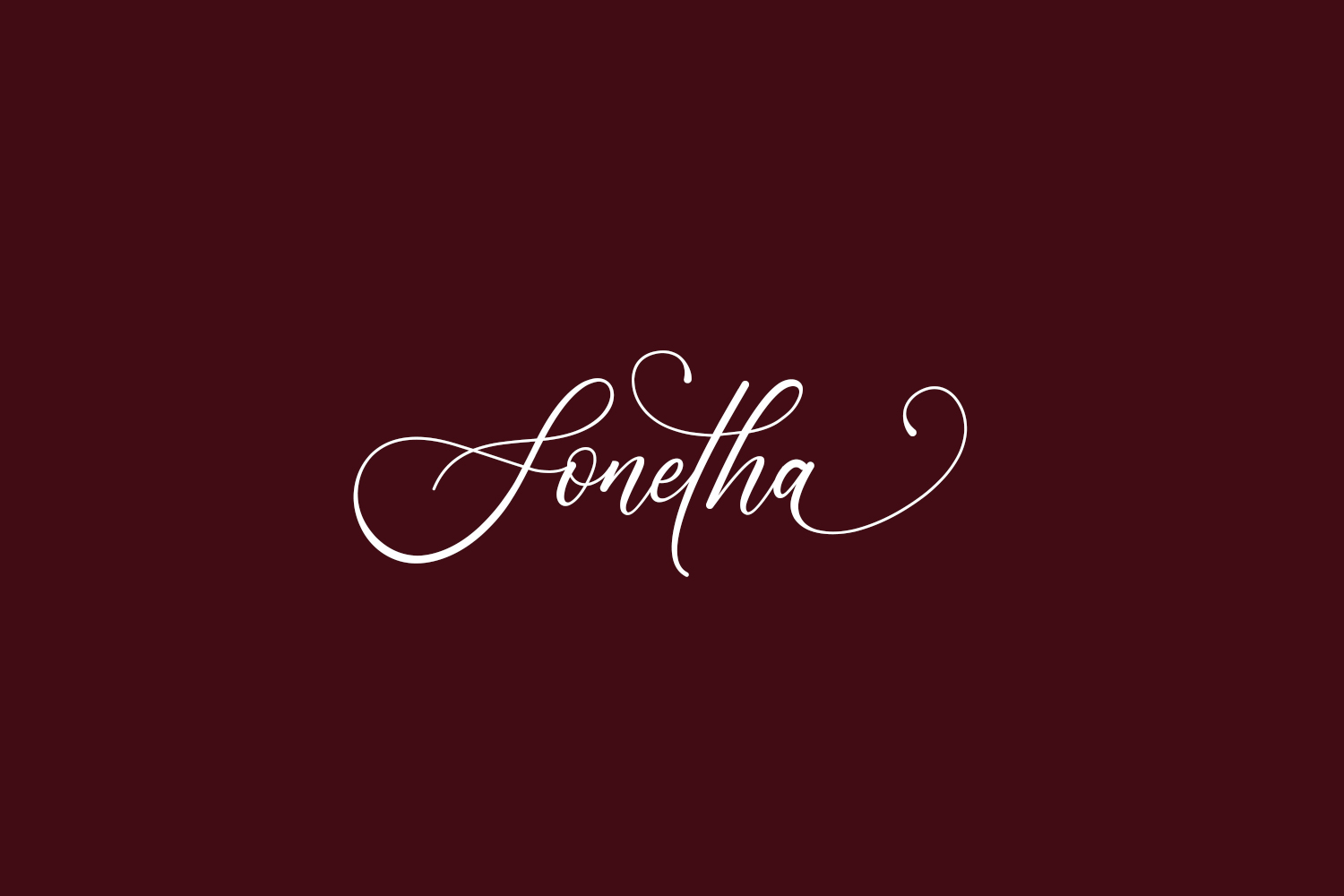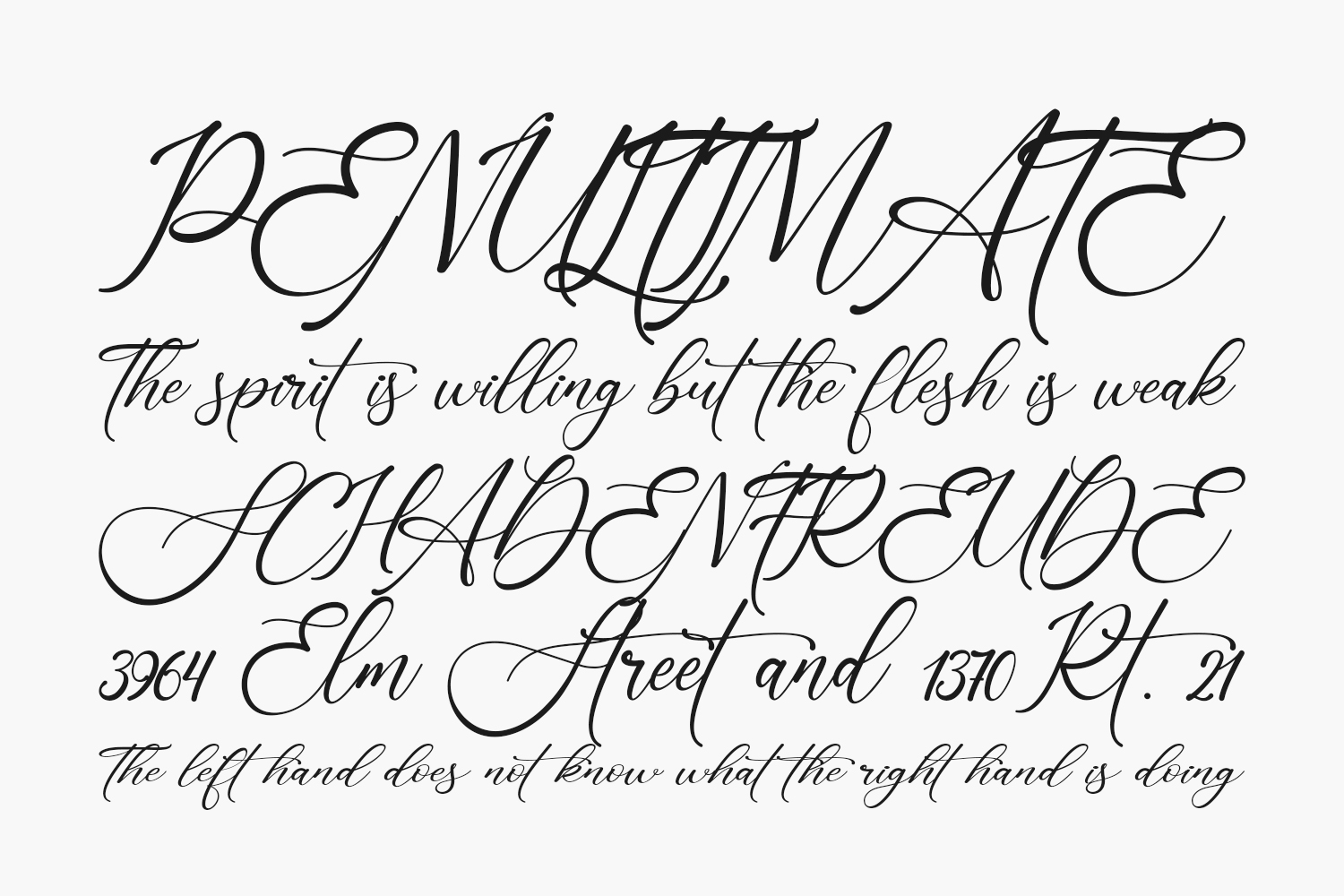
Sonetha Free Font is a unique, cool, and Beauty Stylistic Calligraphy. Its hand look style makes perfect to use for the invitation, stationery, wedding designs, social media posts, advertisements, product packaging, product designs, label, photography, watermark, special events, logos, signatures, quotes, badges, labels, packaging design, blog headlines or simply use it in your next design project.
Using Sonetha definitely make your text stand out. The alternative Sonetha comes includes a full set of gorgeous uppercase and lowercase letters, multilingual support, punctuation, and stylistic set gorgeous extras from a to z and beginning and ending numerals swashes. everything can be easily accessed using software that supports OpenType. Like Adobe Indesign, Adobe Illustrator CS, Adobe Photoshop CC, and Corel Draw.